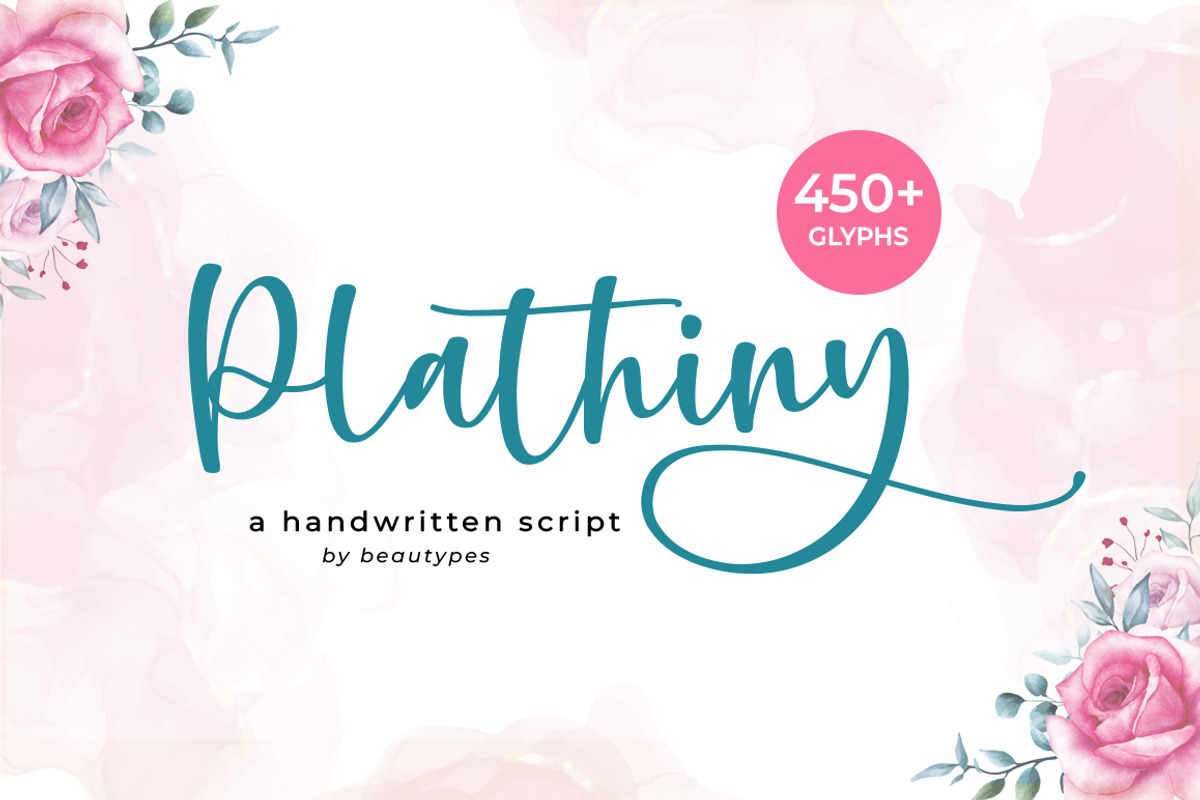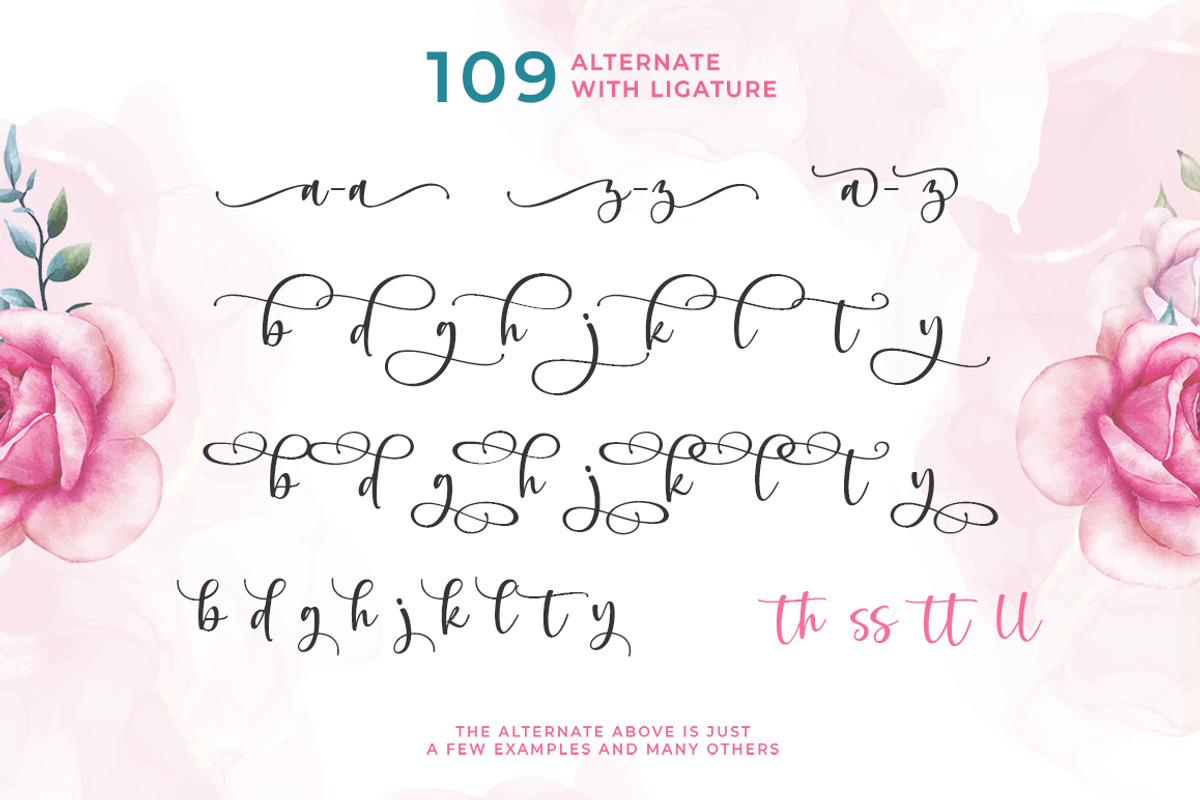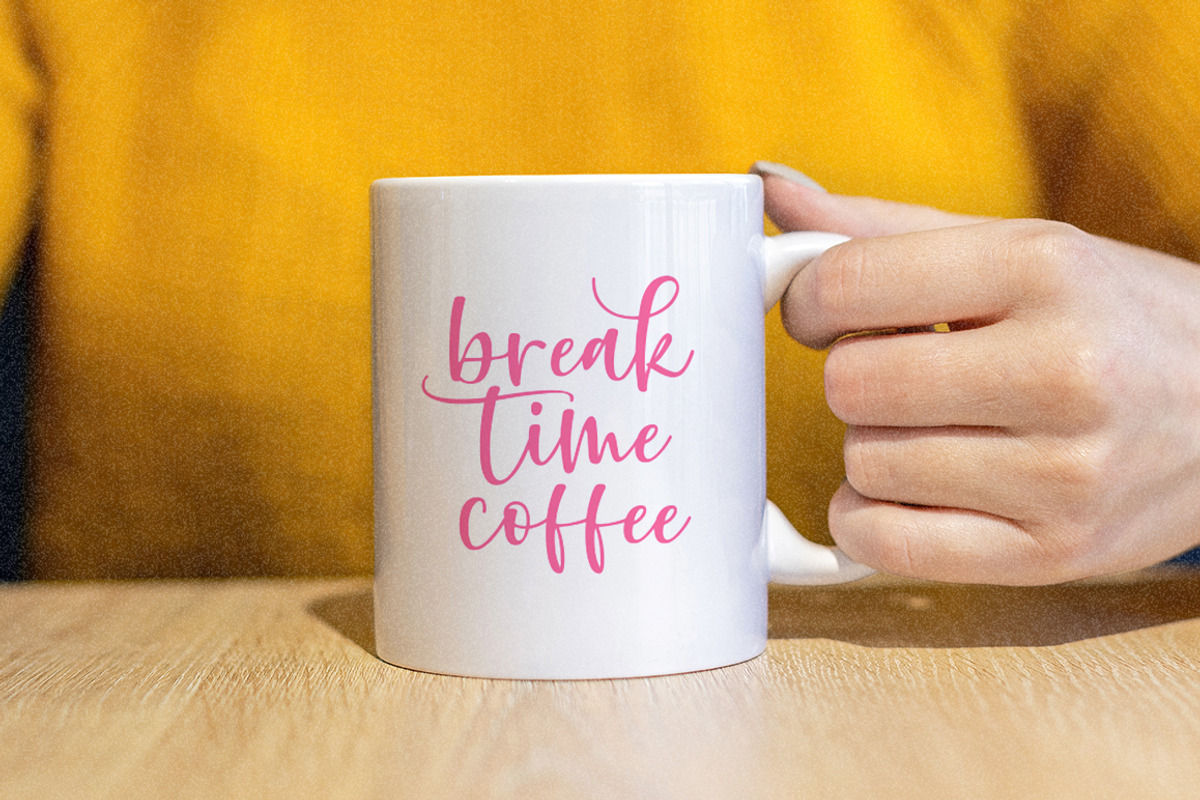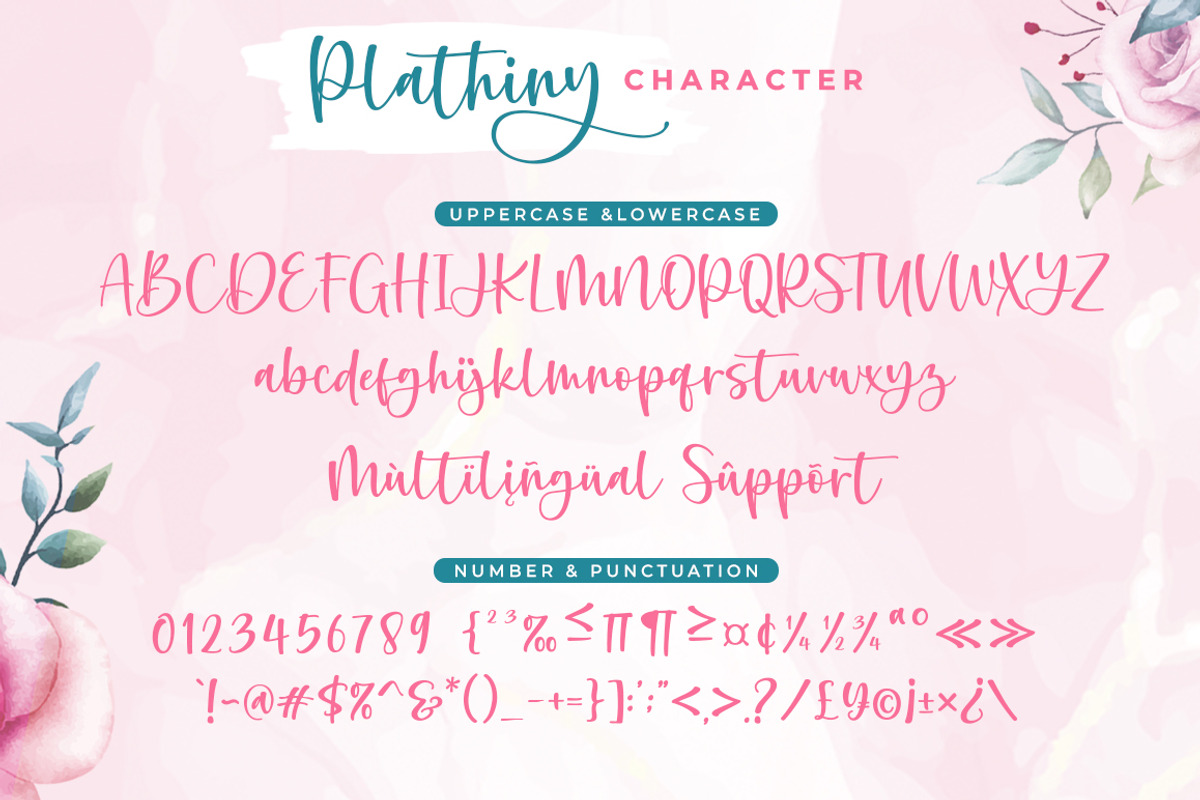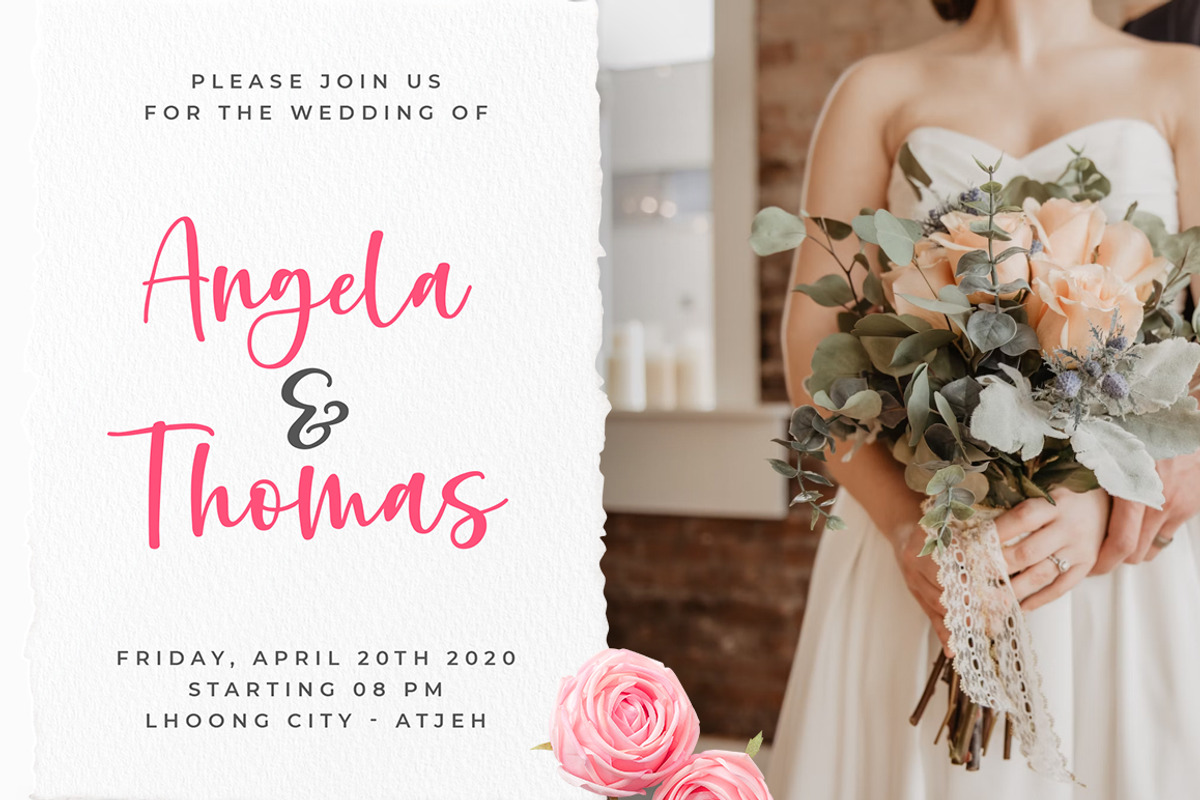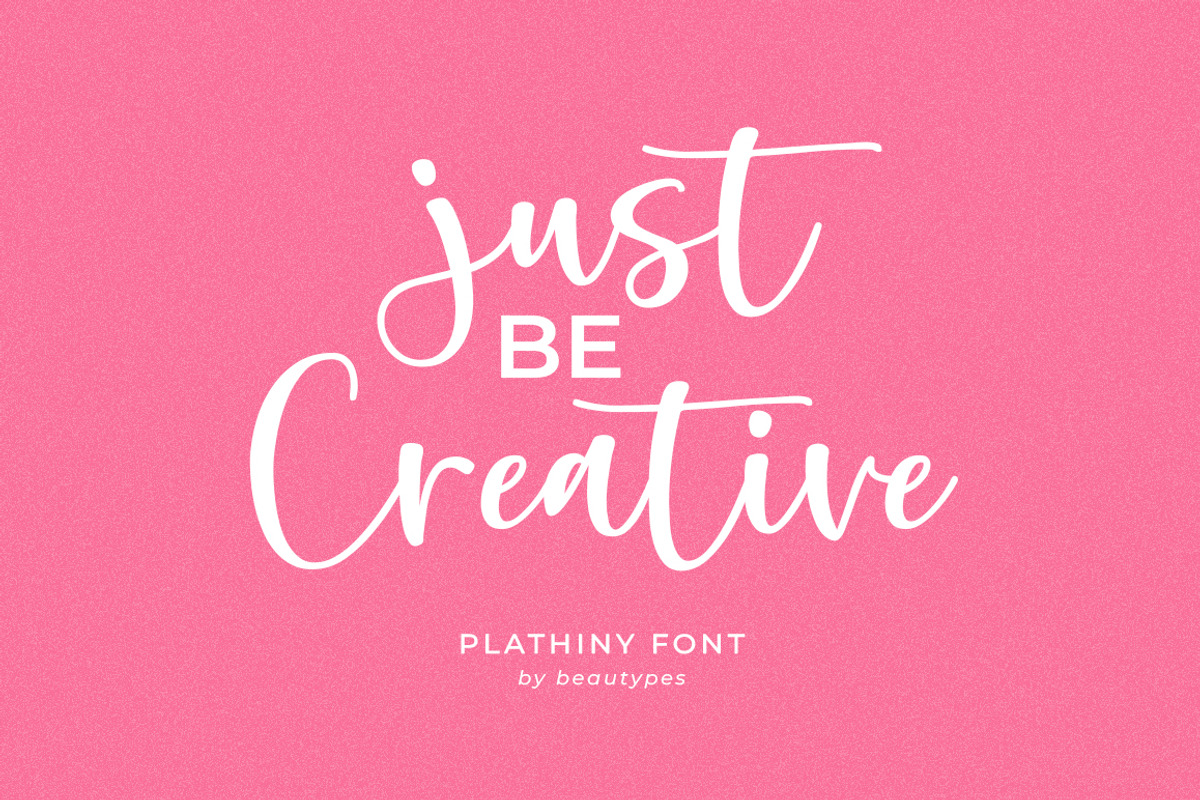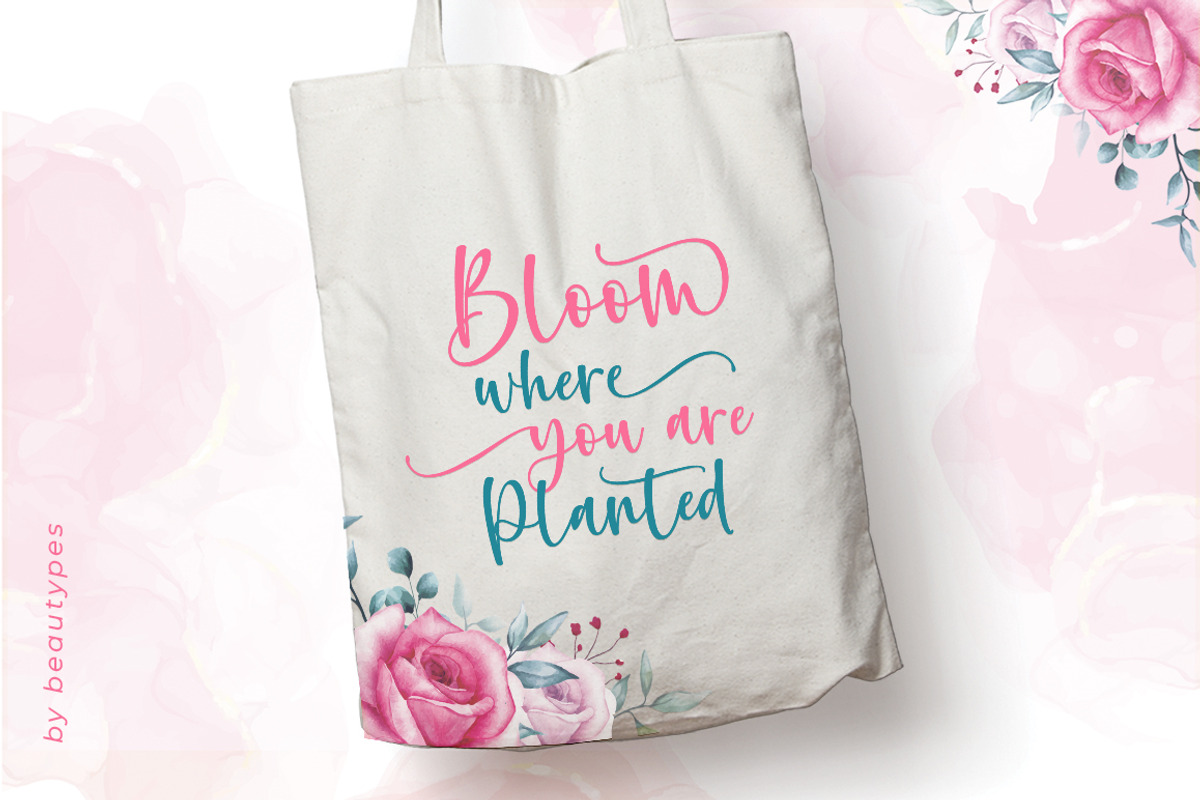
Plathiny - a handwritten script
Plathiny is a modern, stylish, and flowing handwritten script font. It has beautiful and well-balanced characters and as a result, it matches a wide pool of designs. It is the best choice for creating eye-catching logos, branding, and quotes. Add it to your most creative ideas